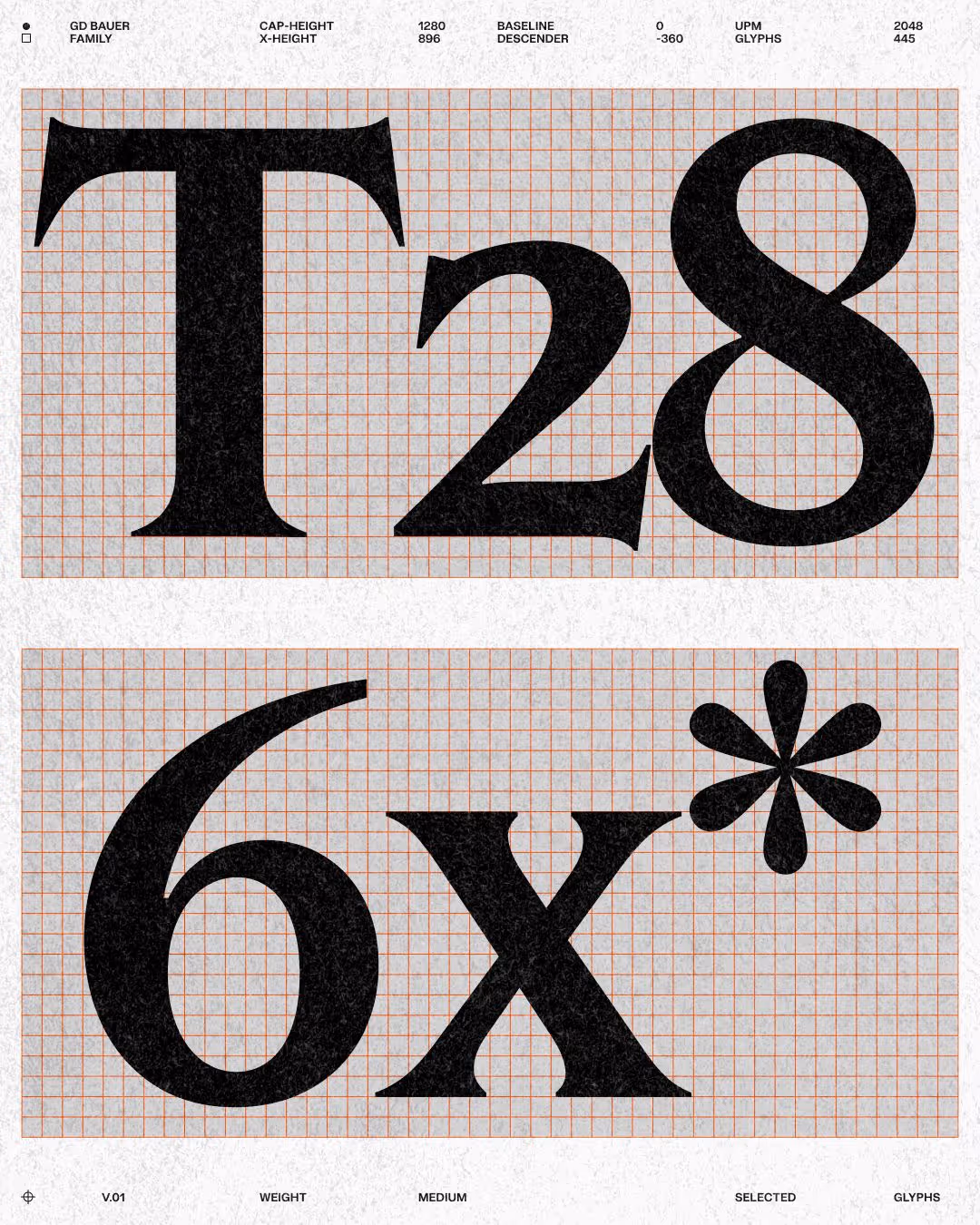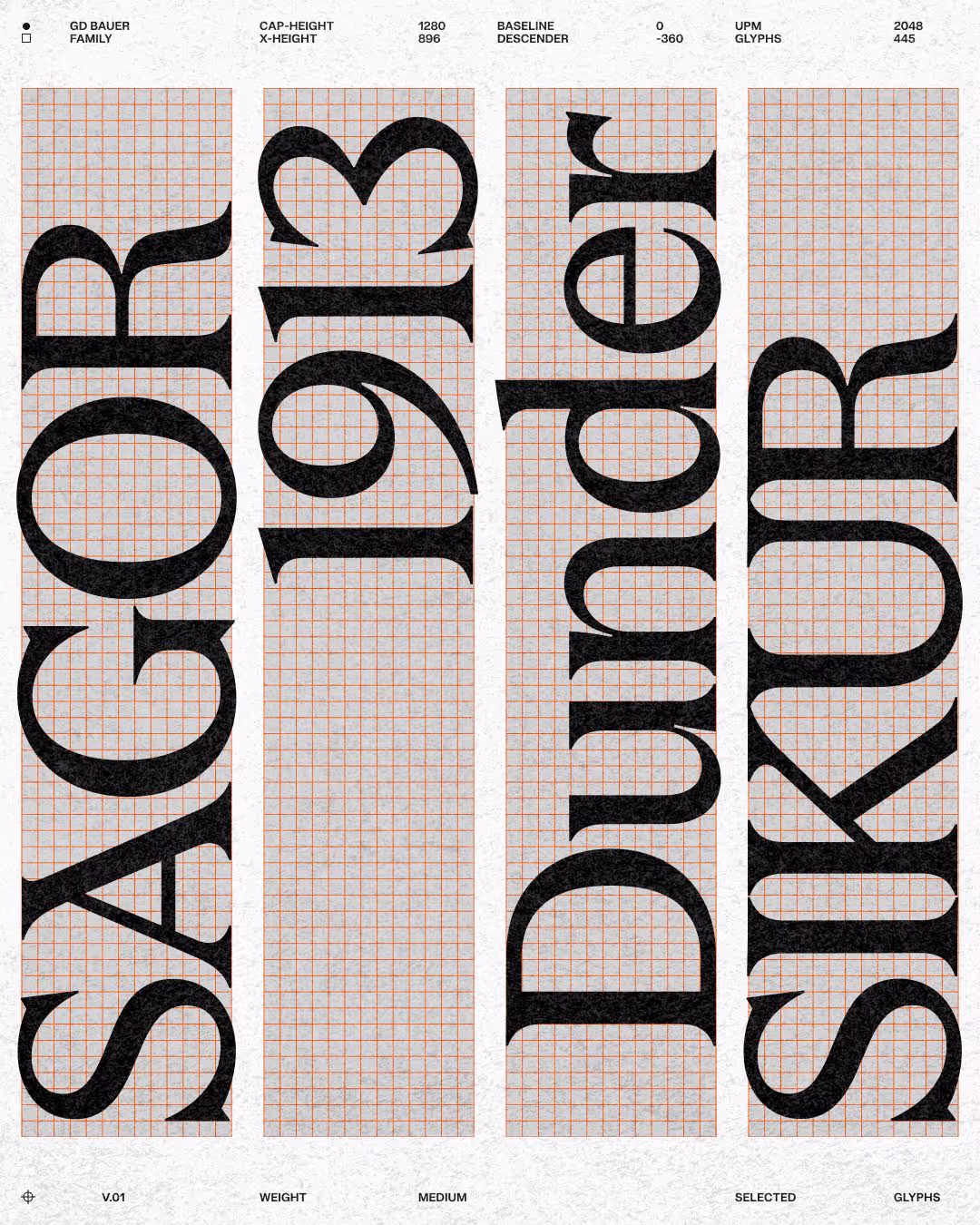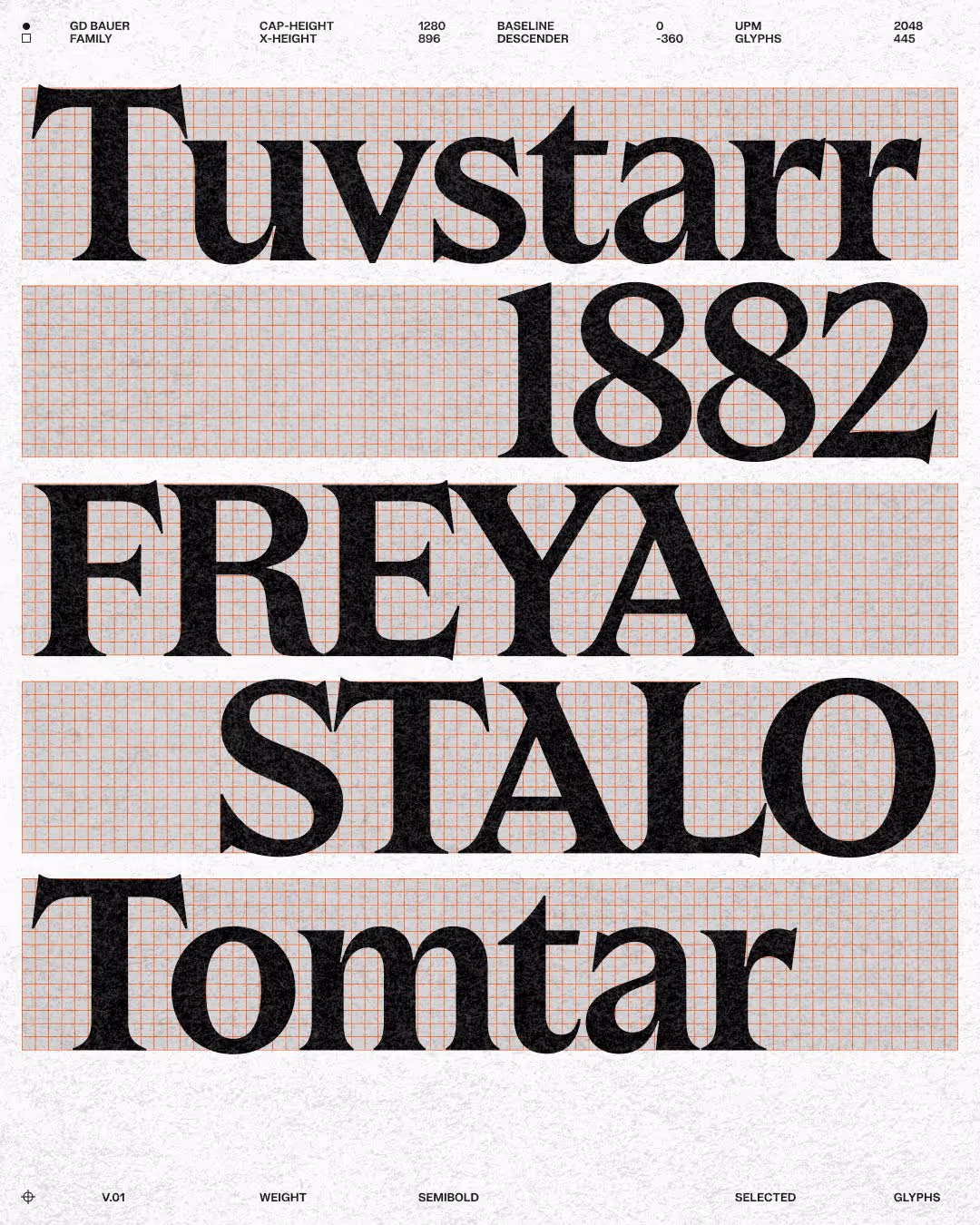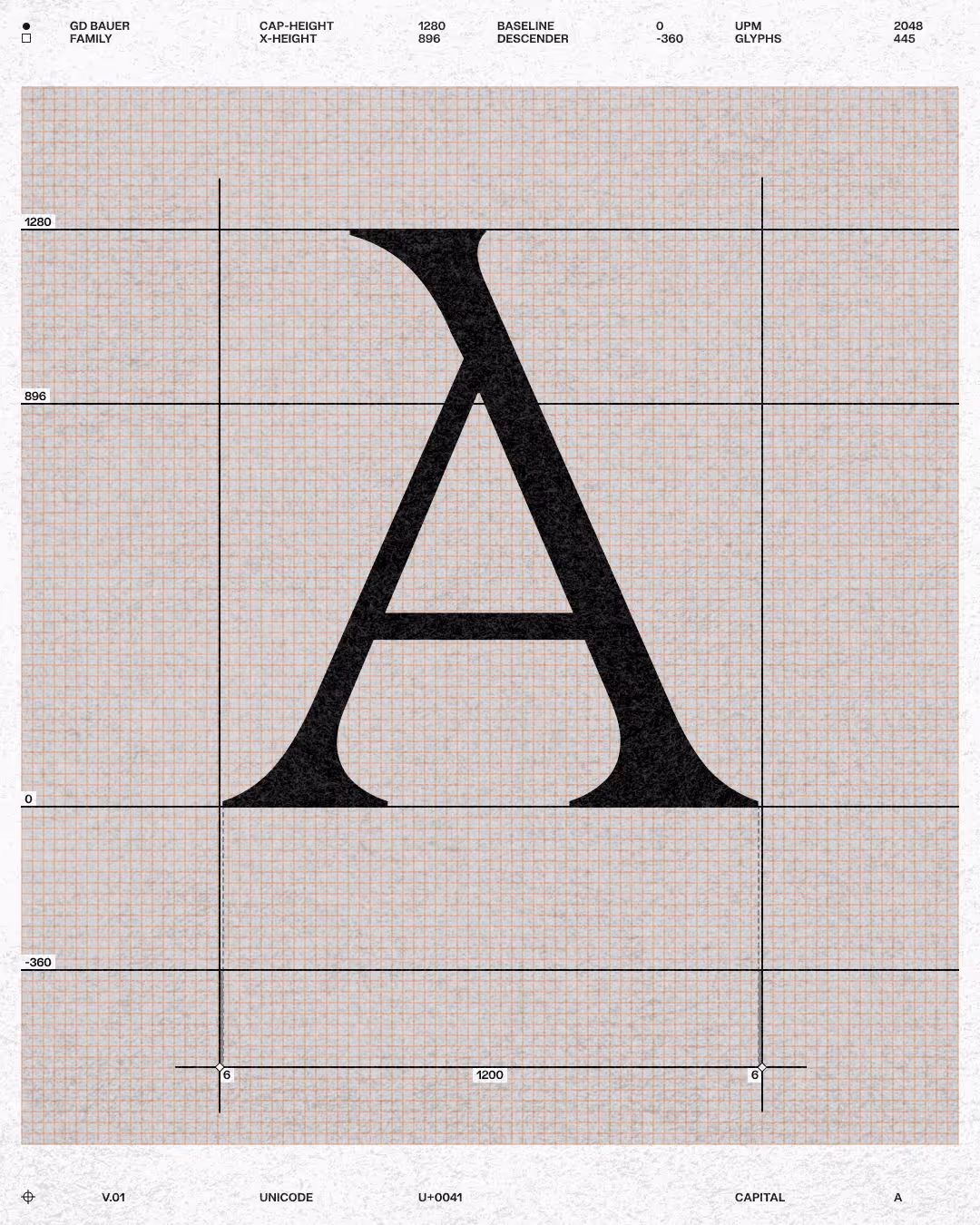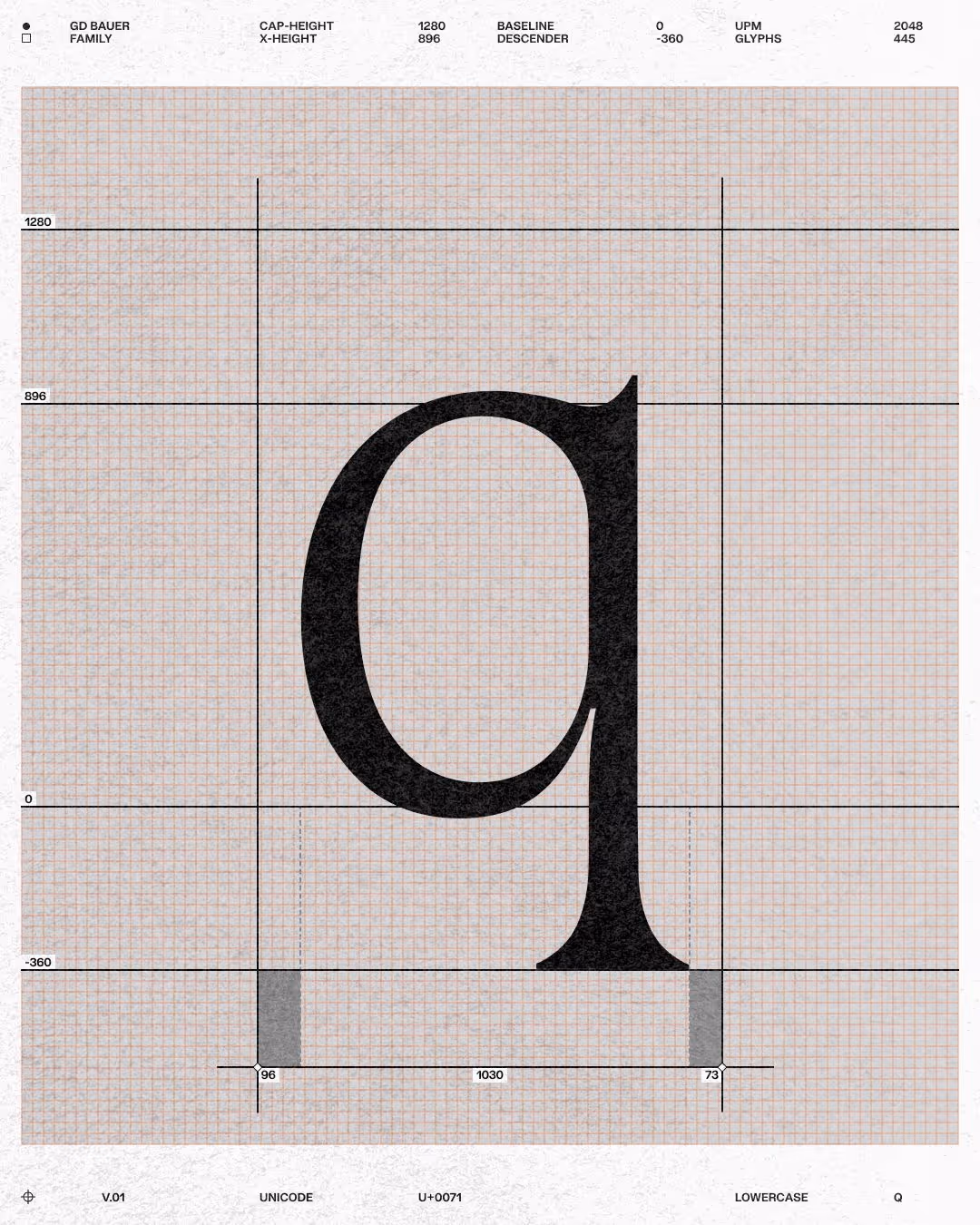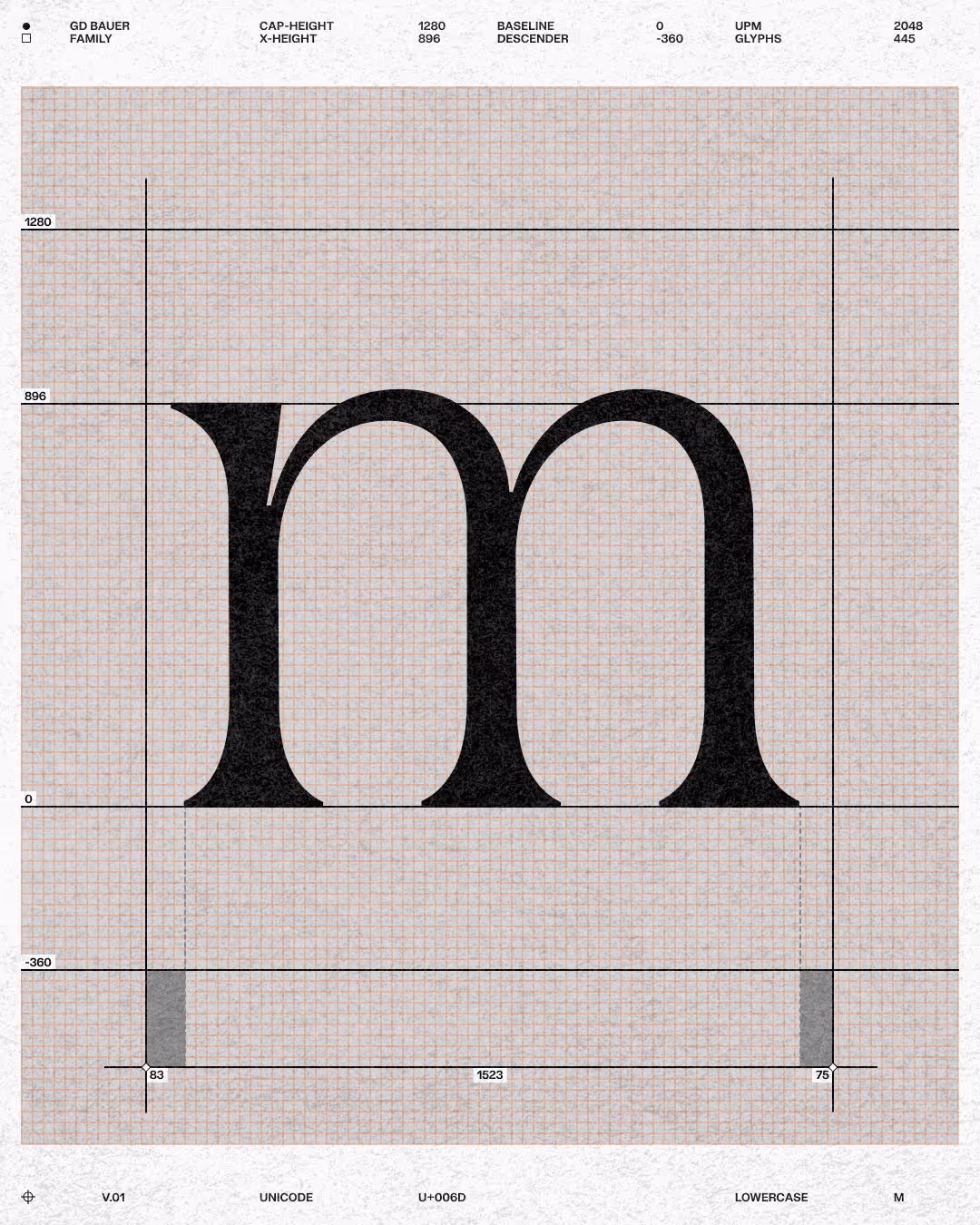
GD Bauer – Craft & Feeling
GD Bauer is a display serif rooted in a 19th century European typeface tradition, with pointed serifs and harmonized proportions. The stroke contrast is even, which keeps it feeling contemporary despite the historical references. Ink traps add depth at display sizes. Sharp where it counts, rounded where it breathes. Assured and elegant, but with real character.
Few typefaces with this much personality work at body size. GD Bauer does, with a text version built to carry its character all the way down.
Named after John Bauer (1882–1918), the Swedish illustrator whose forests, trolls and silent princesses still carry the charge of something ancient and half-seen. A fitting name for a typeface built on the same conviction: that craft and feeling are never opposites.
Style
Serif
Weights
Display Light
Display Regular
Display Medium
Display Semibold
Display Bold
Text Regular
Text Medium
Text Semibold
Text Bold
Features
Open Type Alternates
Proportional Numbers
Tabular Numbers
A pointed serif with roots in 19th century Europe, where the same typeface travelled from Paris to Berlin and back again under different names. Sharp where it counts, rounded where it breathes. Ink traps catch the light at display sizes, and the text version carries the same character all the way down. Precise and handcrafted, assured and elegant. The kind of typeface that knows exactly what it is, and has known for a long time.